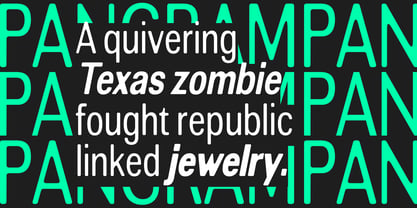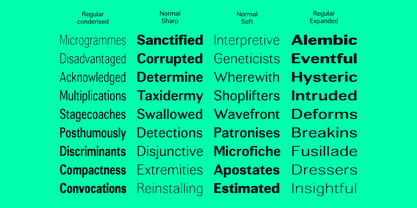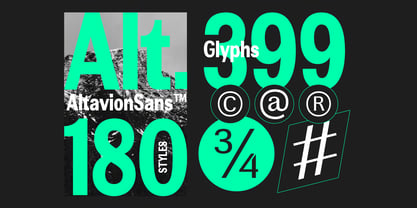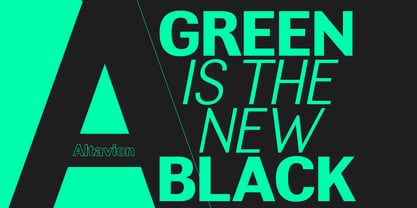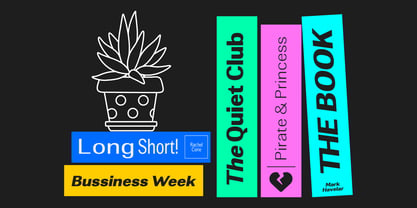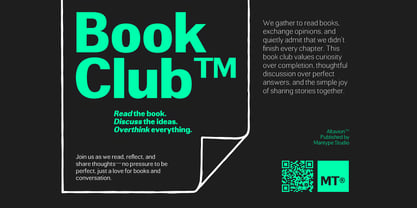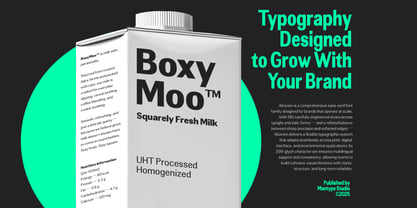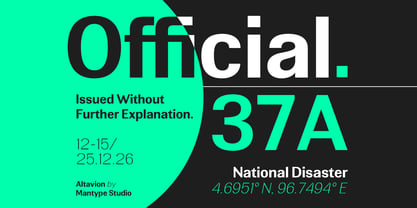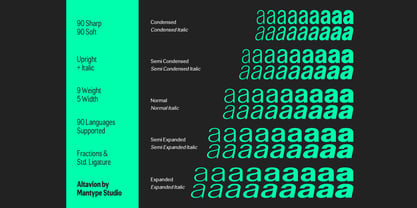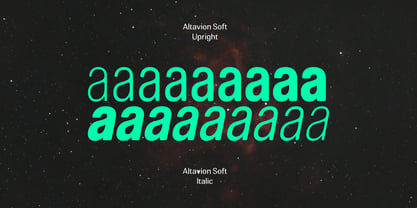
Altavion
par Mantype Studio
La famille de polices Altavion a été conçue par Sulai Man et publiée par Mantype Studio. Altavion contient 182 styles et options de package familial. En savoir plus sur cette famille
Altavion is a modern sans-serif typeface with a bold, clean, and futuristic character. Designed to stand strong in contemporary visual spaces, Altavion combines precise proportions with balanced, smooth curves—creating an impression that is both professional and visionary. Every letterform feels solid and stable, yet remains flexible for a wide range of design needs. With an extensive family of up to 180 styles (upright and italic), Altavion offers freedom for typographic exploration, from minimal to expressive layouts. Its sharp yet soft character makes it ideal for modern branding, editorial headlines, technology, fashion, and digital interfaces. Support for 399 glyphs ensures consistency and completeness across multiple languages and design contexts. Altavion is not just a typeface—it is a visual statement of the future, clarity, and confidence.